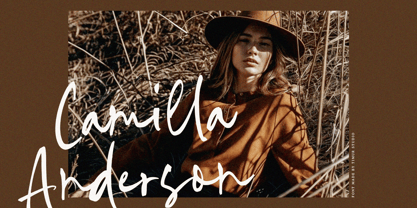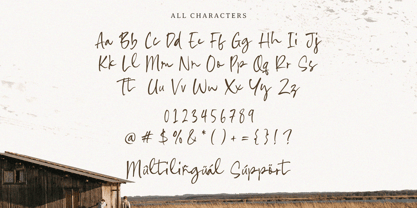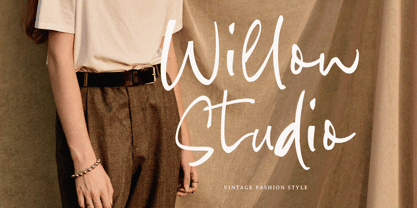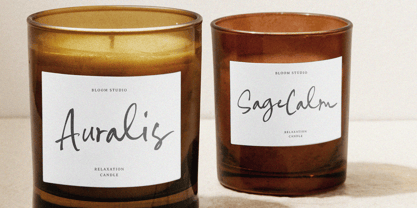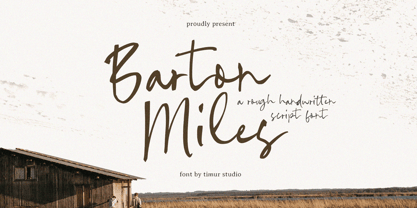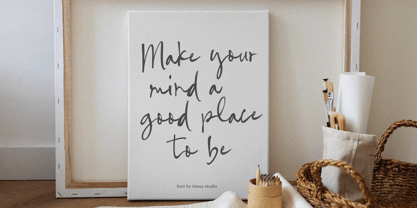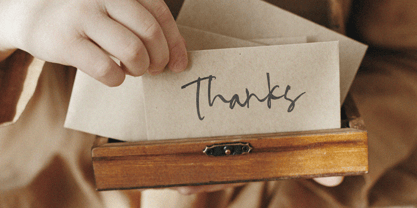
Barton Miles
by Timurtype
The Barton Miles Font Family was designed by Ibnu Nur Rahman and published by Timurtype. Barton Miles contains 1 styles. More about this family
Introduced by Timurtype Studio! Barton Miles is a Rough Handwritten Script Font Barton Miles is a rough handwritten script font that captures the raw, unfiltered energy of natural pen strokes. With its imperfect lines and textured edges, it brings an authentic, expressive feel—perfect for designs that seek a bold, personal, and effortlessly artistic touch. Barton Miles Font also supports multilingualism Enhance your designs with our original fonts, feel free to comment or provide feedback, Enjoy the fonts 😊 Thank You